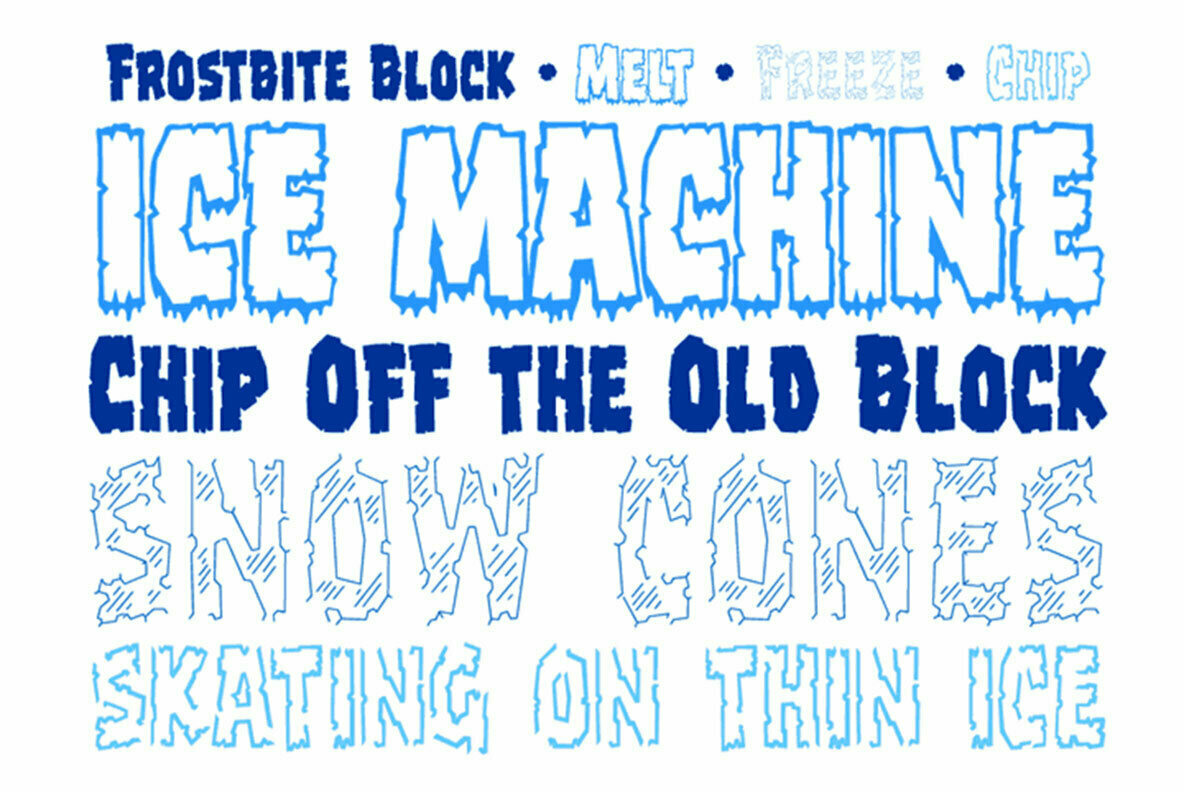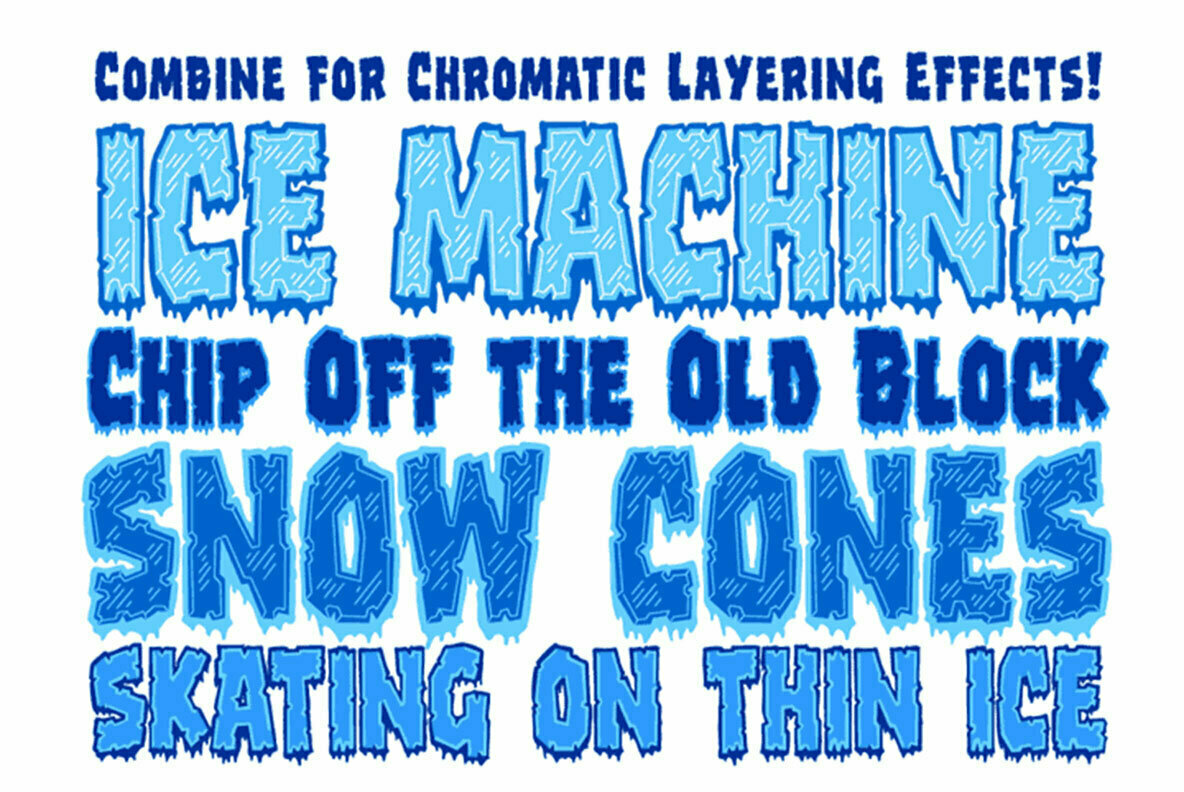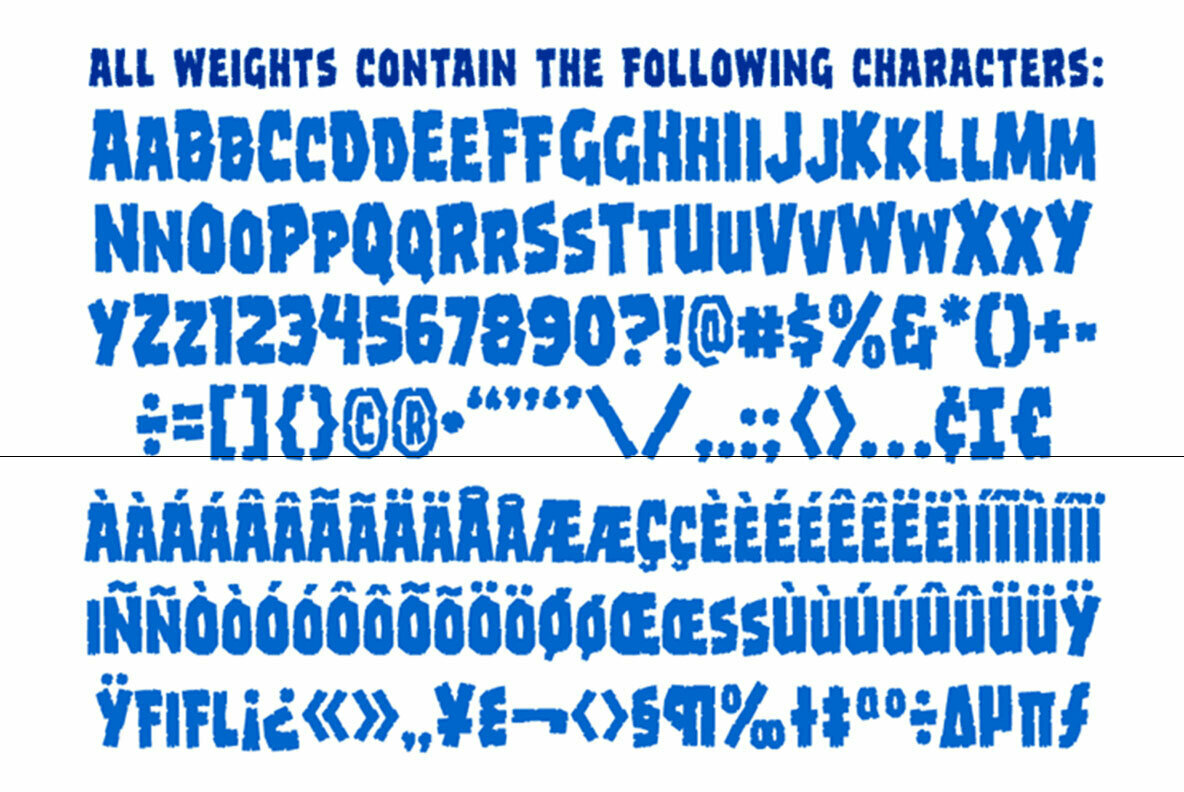
Frostbite Font
CC Frostbite Color Regular
CC Frostbite Block
CC Frostbite Chip
CC Frostbite Freeze
CC Frostbite Melt
If you’re feeling a chill in your bones and the grass is a little crunchy under your feet after looking at this font, you might like to put your feet in warm water when you get home if to stave off a little Frostbite. This remastered font family is a chip off the old block, and will help you thaw out before your skin starts to freeze and flake. We recommend you melt Frostbite cubes in the warm water too to ensure you don’t stick to the ice. We also recommend you don’t lick the letterforms, as we know our customers are wont to do.